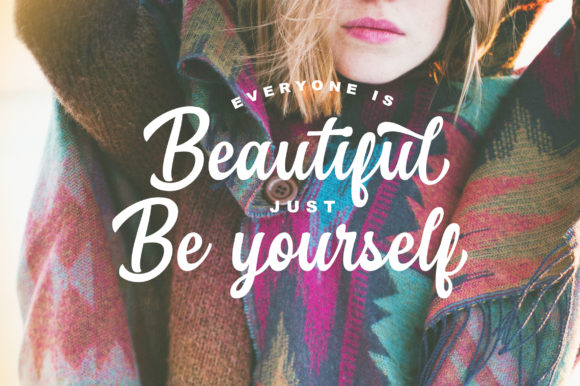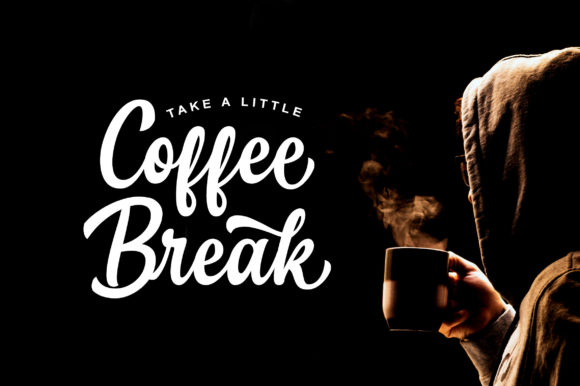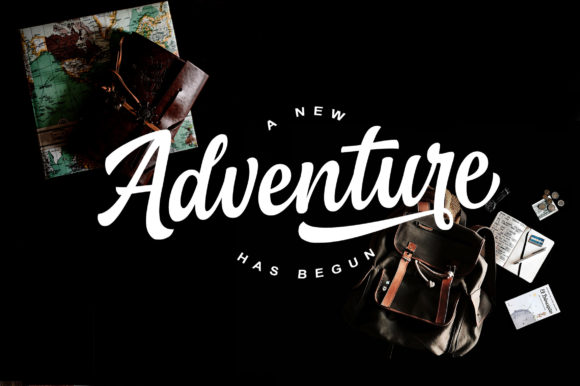
The Catalunya Font: A Vintage-Inspired Script with Modern Authenticity
I’ll never forget the design project that led me to discover the Catalunya font. I was working on a branding campaign for a boutique winery, and I needed a font that would evoke a sense of tradition, yet feel fresh and modern. After hours of scouring font libraries and testing out different scripts, I stumbled upon Catalunya. Its unique blend of vintage charm and contemporary flair instantly won me over. In this article, I’ll share my experience with Catalunya, its features, and how to make the most of it in your designs.
An Honest Review of Catalunya Font
• ✨ Elegant, flowing script with a distinctive vintage vibe
• 💫 Beautifully crafted with attention to detail, giving it a premium feel
• 🎨 Versatile and adaptable to various design projects, from branding to packaging
While Catalunya is an excellent font, it’s not without its quirks. For instance:
• 🤔 It may not be the best choice for very large blocks of text, as its script nature can be tiring to read.
• ⚠️ Some users might find the font’s vintage feel too ornate for certain projects.
Catalunya’s design story is one of passion and attention to detail. Its creator, inspired by the rich cultural heritage of Catalonia, aimed to craft a font that would reflect the region’s history and beauty. Through meticulous design and testing, Catalunya was born – a font that balances vintage authenticity with modern flair.
What makes Catalunya font unique? Catalunya’s distinctive vintage vibe, combined with its modern authenticity and high legibility, make it a standout choice for designers.
Is Catalunya suitable for body text? While Catalunya is highly legible, its script nature may not be ideal for very large blocks of text. It’s better suited for headings, titles, or short paragraphs.